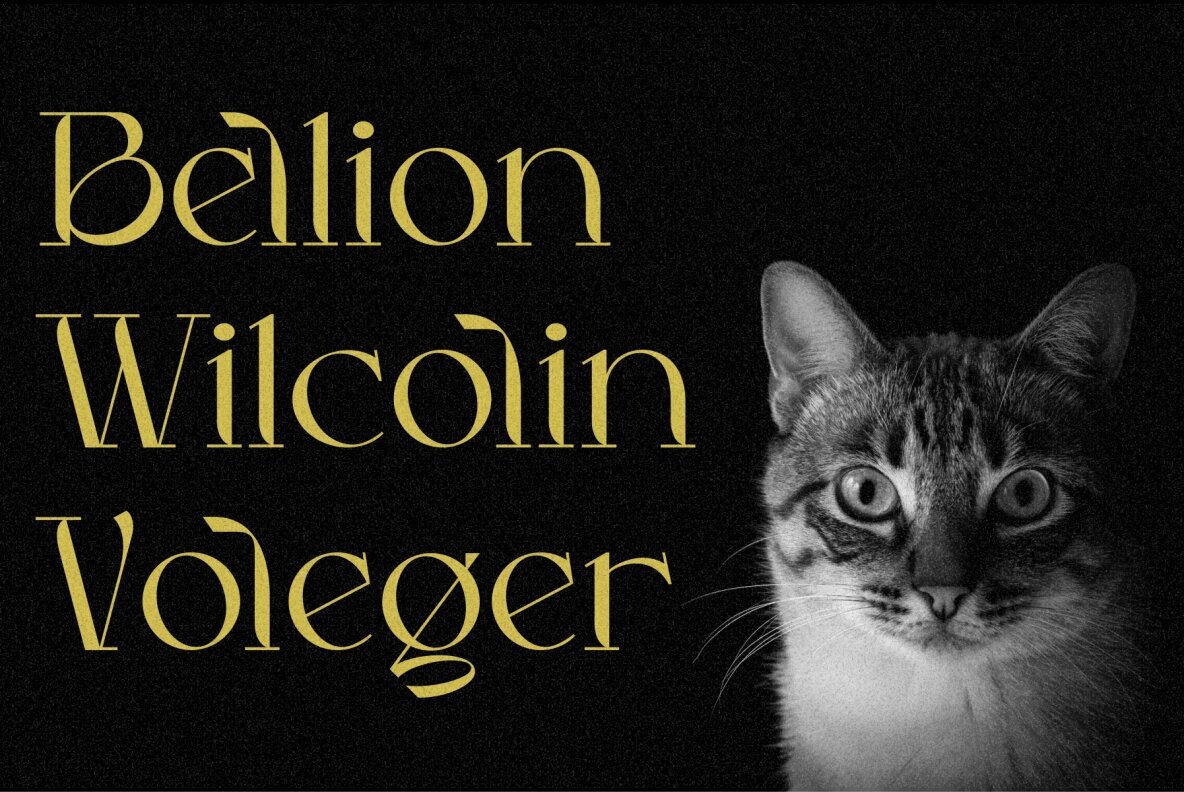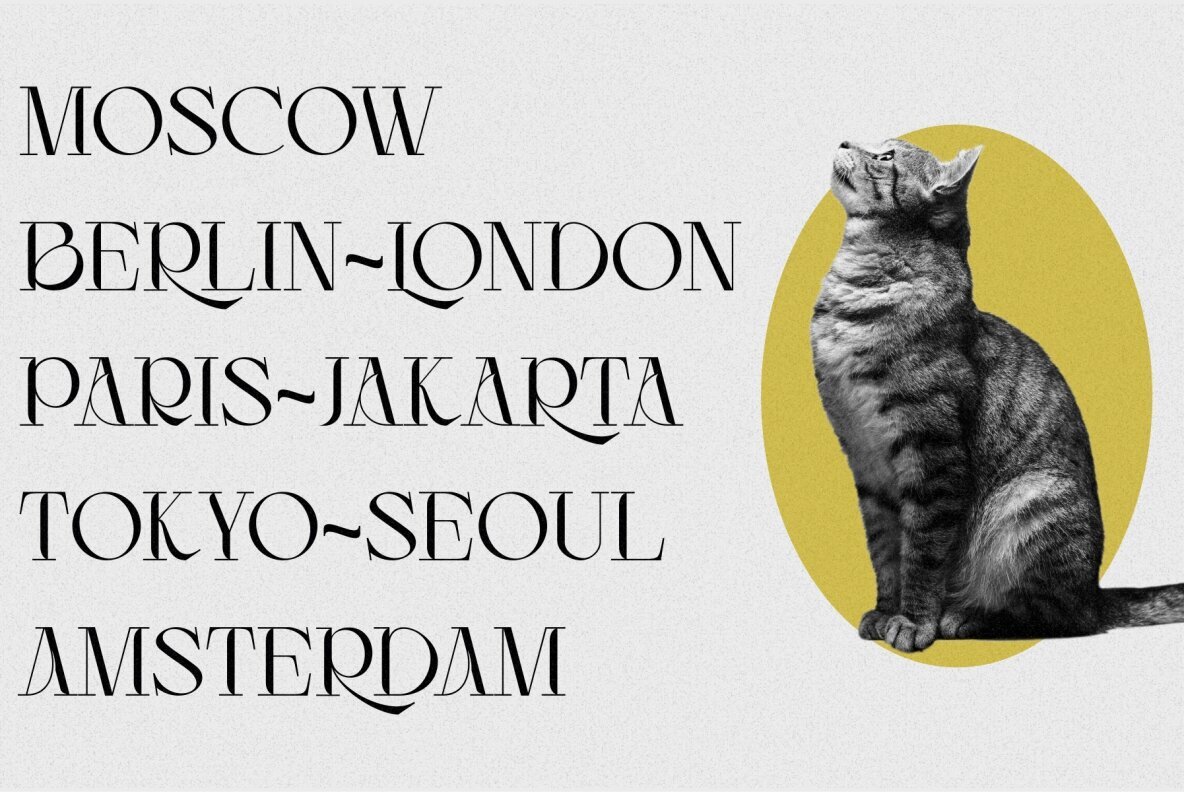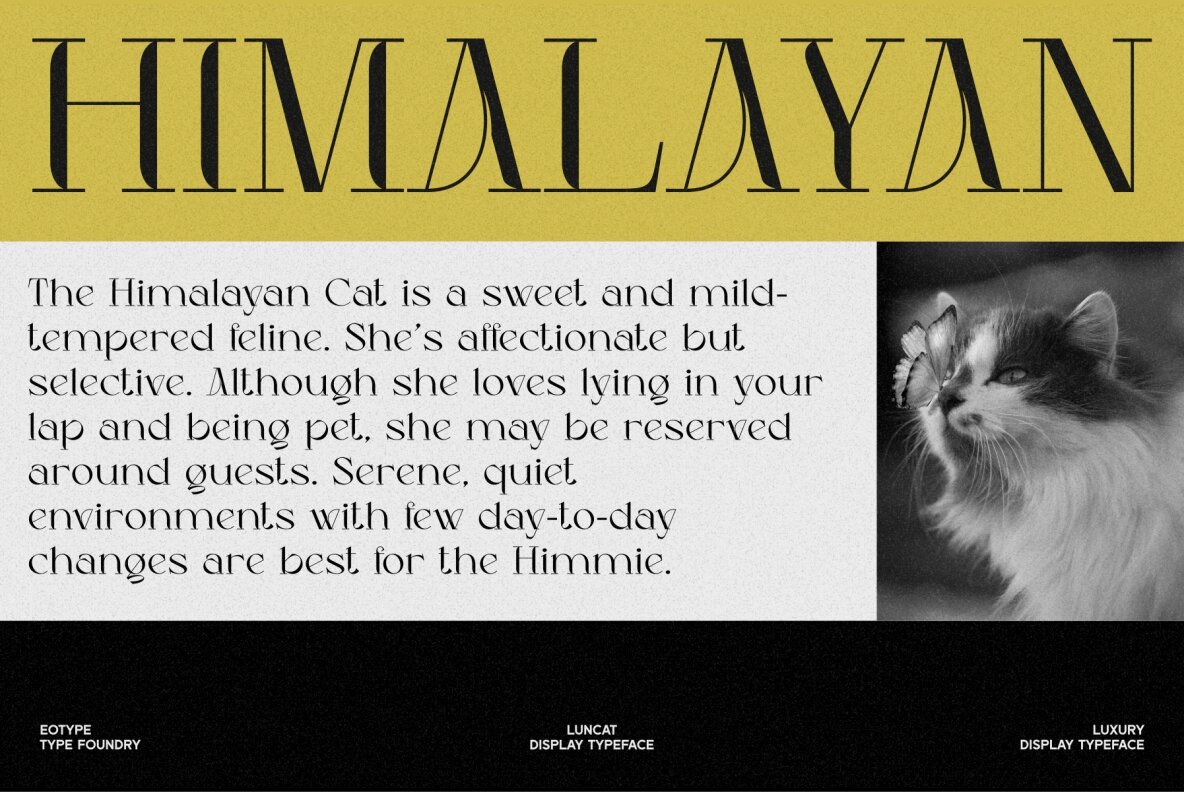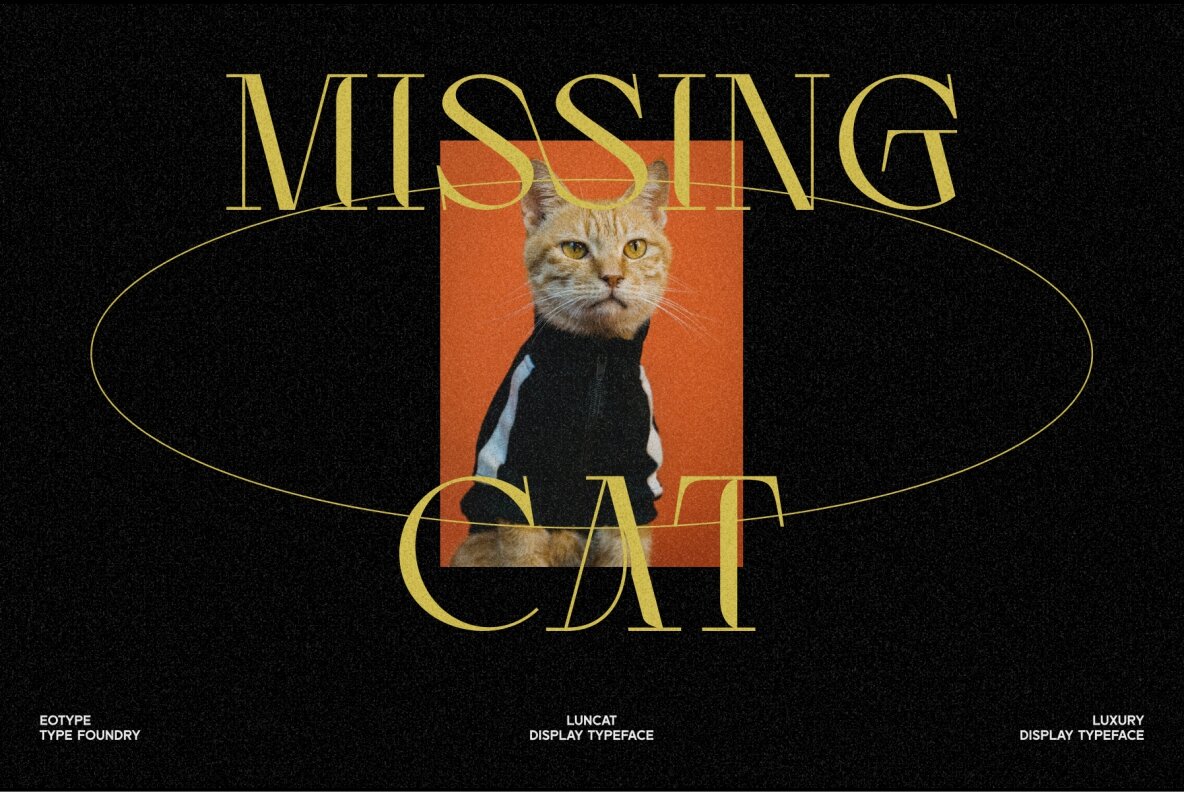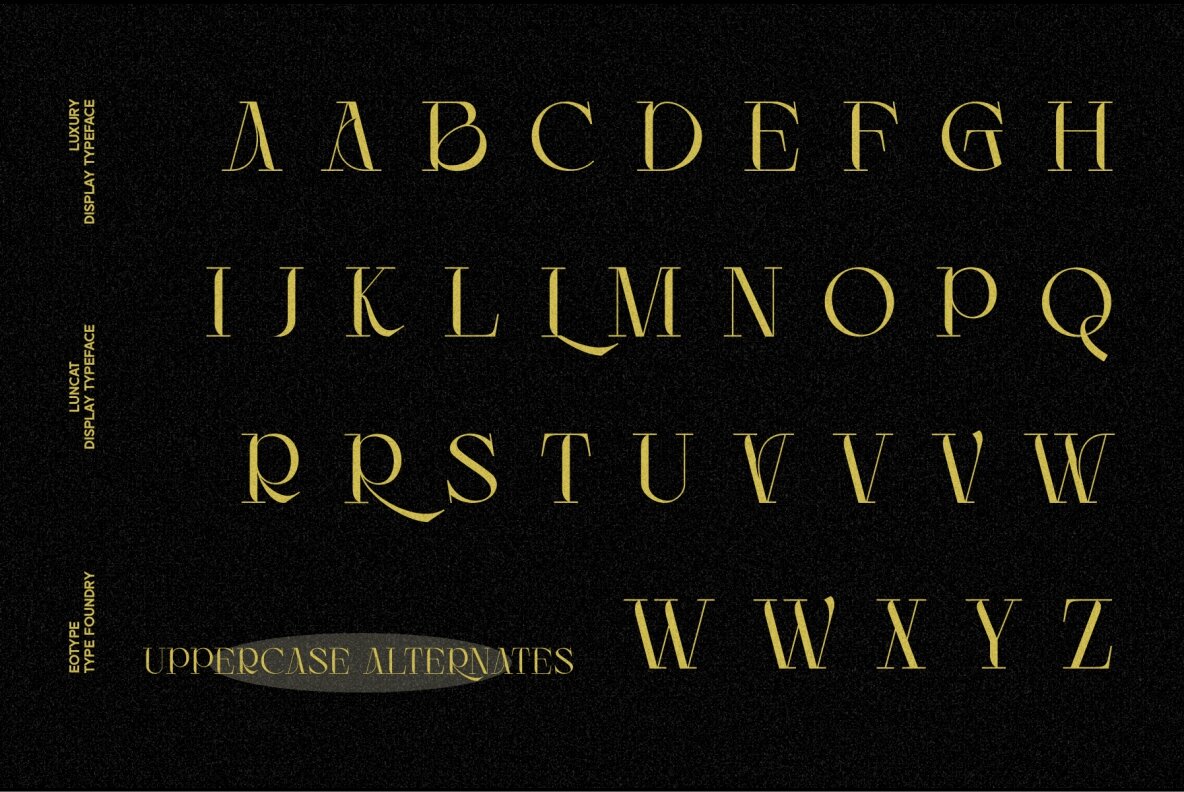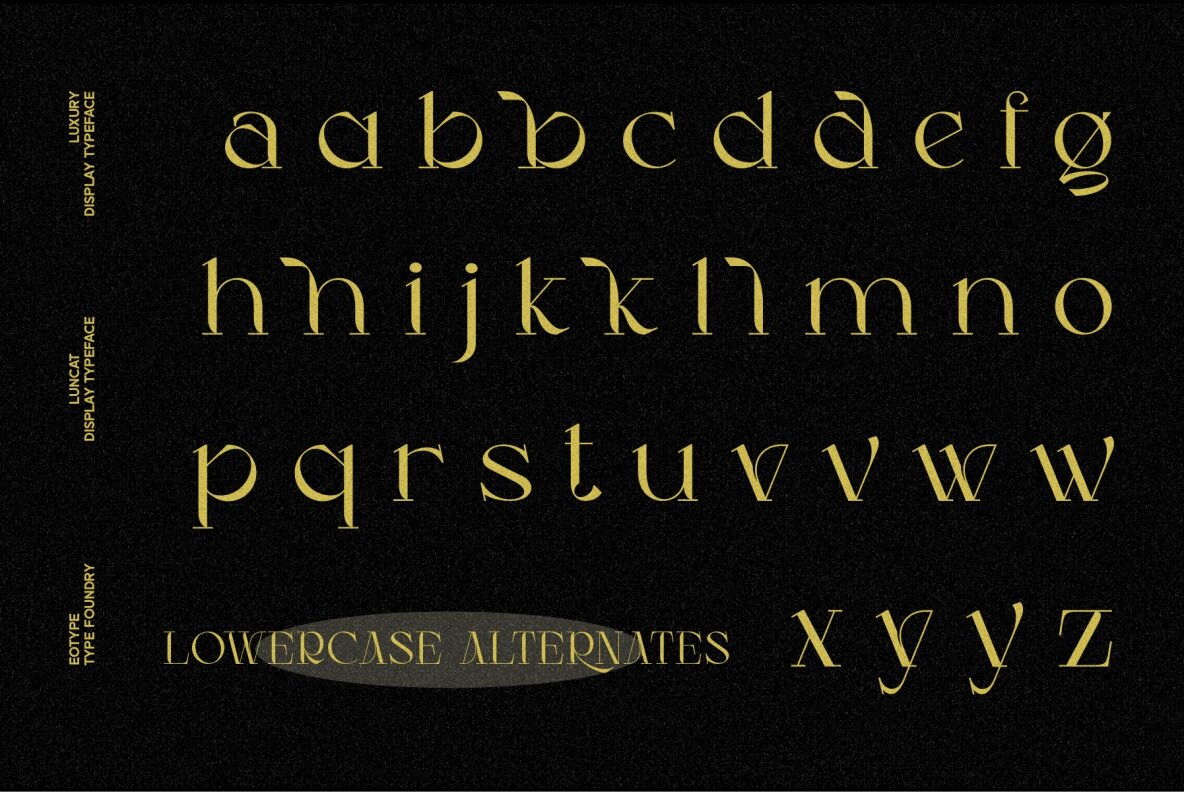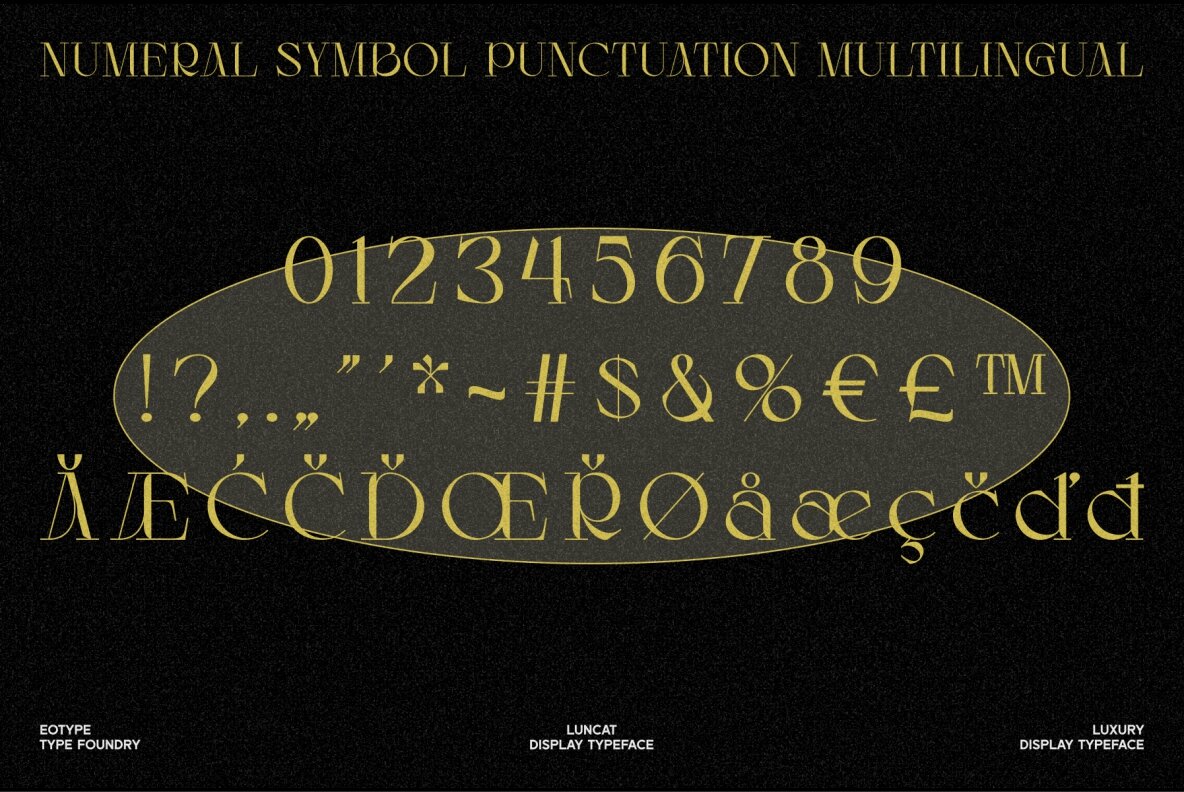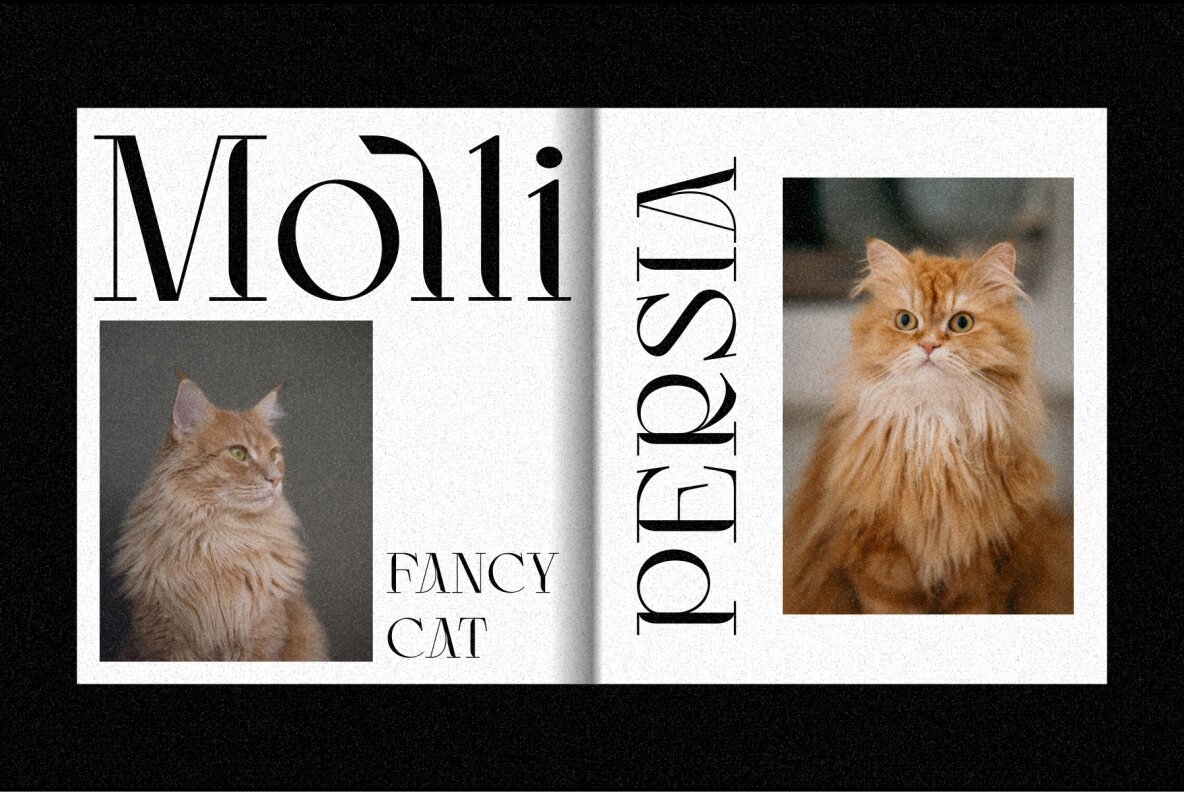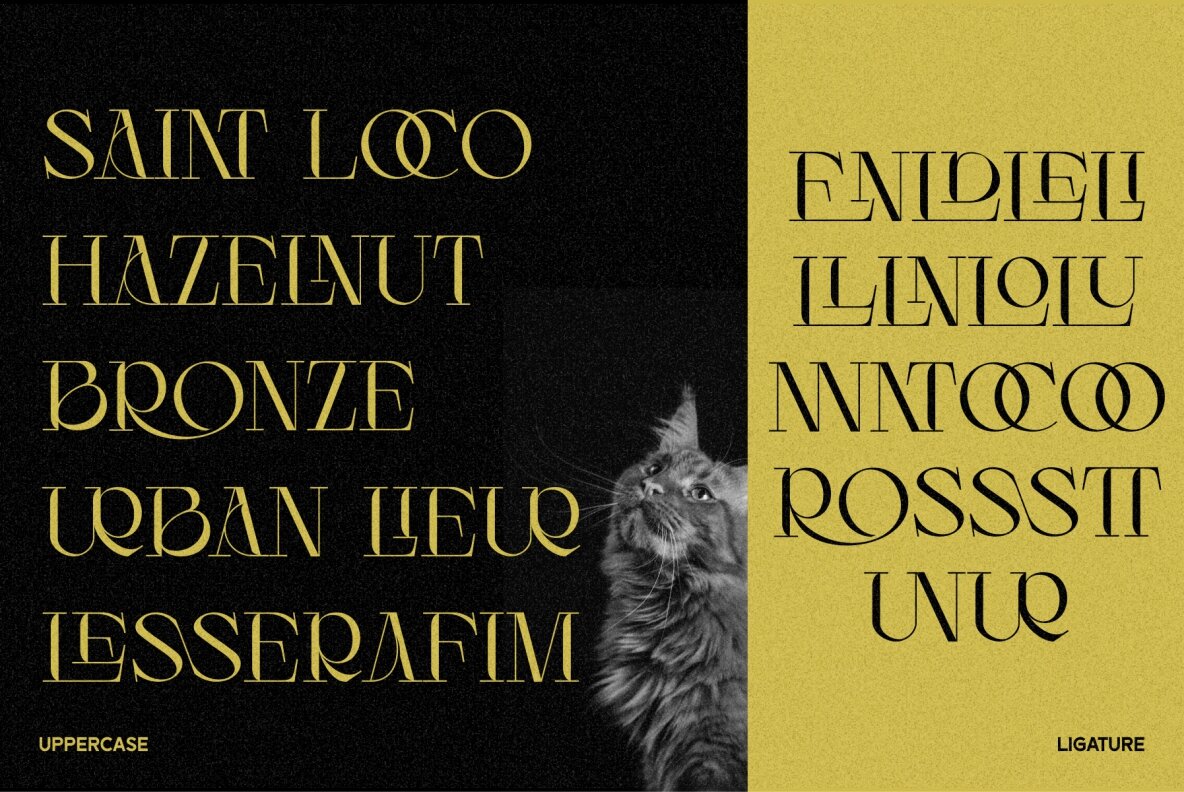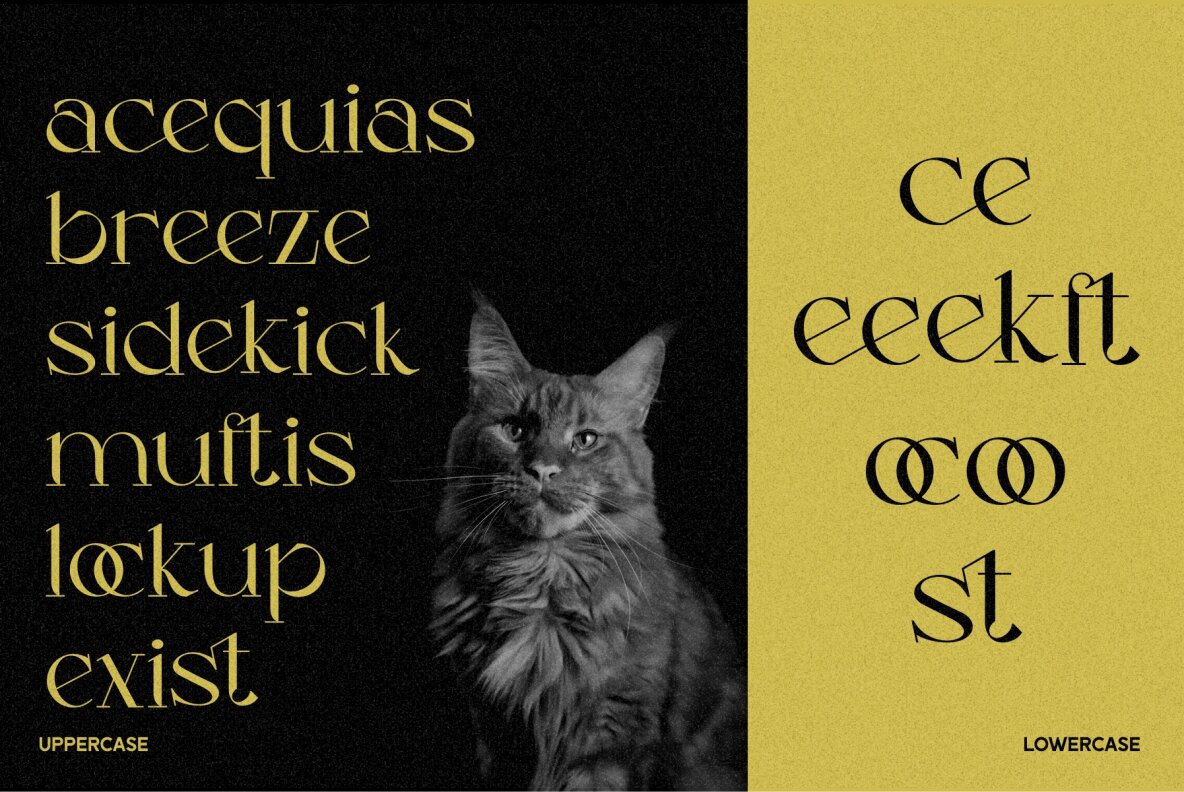
Luncat: A Bold Take on Modern Serif
Luncat, conceived by eotype Studio, stands as a distinctive modern serif font with pronounced contrast between its thin and thick lines. Designed to meet a wide array of creative needs, Luncat excels in lending a modern vintage aesthetic to brands, magazines, and logos.
• Extreme Contrast – Highlights the bold thin and thick lines.
• Versatile Usage – Ideal for branding, editorial design, and more.
• Alternative Styles & Ligatures – Offers unique customization options.
With its striking features, Luncat brings a dynamic flair to any design project.